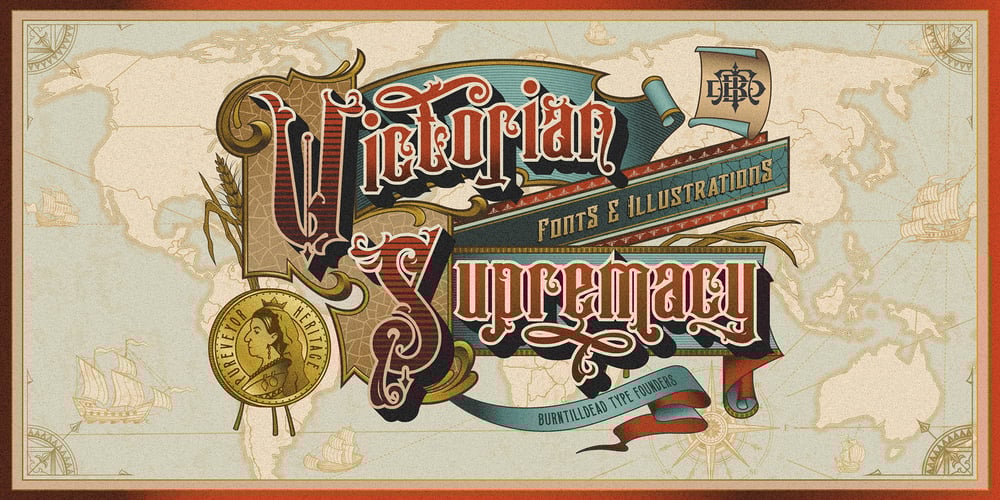
Victorian Supremacy Font Family was designed by Eric Kurniawan and published by Burntilldead. Victorian Supremacy contains 11 styles and family package options. With over a year of design and development, Victorian Supremacy is ready to help you and your clients make a statement by adding elegance and unique flair to your next design project.Victorian Supremacy inspired by letterheads from the late 1800’s and early 1900’s. Set includes four major styles and layered version (gradient, outline & extrude).Victorian Supremacy offers an expansive set of options, making it the perfect choice for books, magazines, packaging, branding and signage. From period style and Victorian to modern and elegant, Victorian Supremacy is strong and stately, yet elegant and decorous.